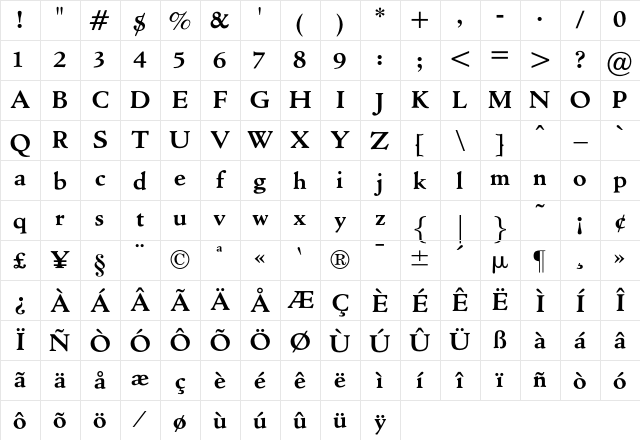
OPTICloister Bold
Foundry: Copr. Castcraft Software, Inc
Design Context for OPTICloister
OPTICloister is a composed and adaptable typeface that performs quietly and consistently across a wide range of design contexts. Its bold stroke weight gives it real presence on the page.
Who designed the OPTICloister Bold font?
This font was published by Copr. Castcraft Software, Inc. Check the technical specs section for copyright and designer details.